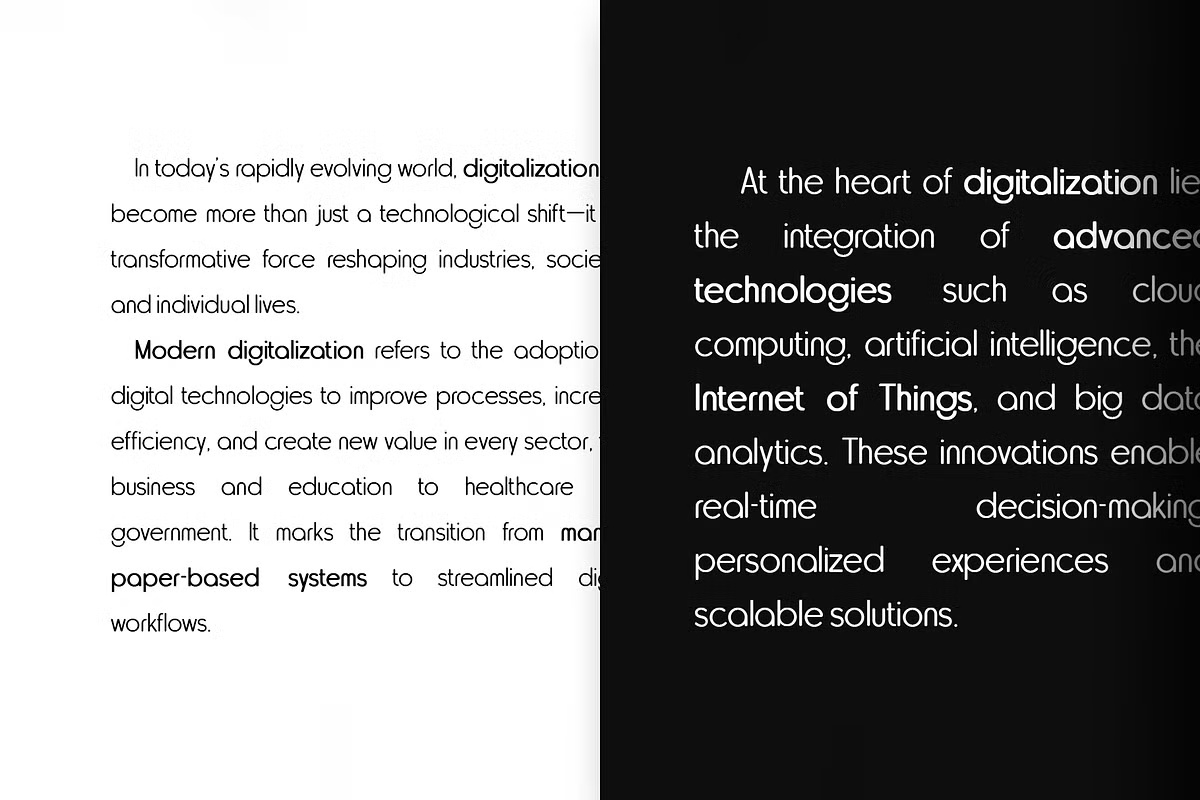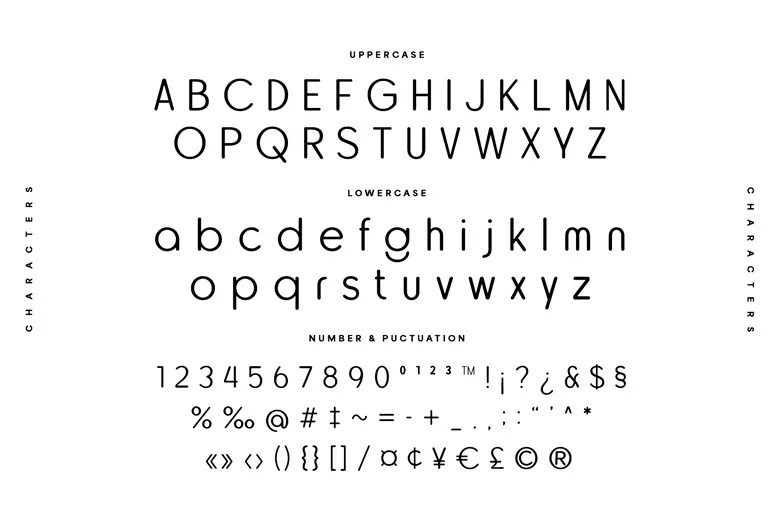
Miguely is a feminine and modern rounded sans serif font that blends elegance with a welcoming, open feel. Its soft, annular curves create a warm and inviting appearance, making it perfect for branding, children’s products, web and app design, packaging, and café identities. With high readability and a contemporary sense, Miguely brings a gentle, clean, and friendly touch to any project. Its versatility allows it to adapt to various applications while adding a minimalist elegance and subtle sophistication. Designers choose Miguely when they want typography that feels fresh, chic, and approachable.
Miguely Sans Serif Font